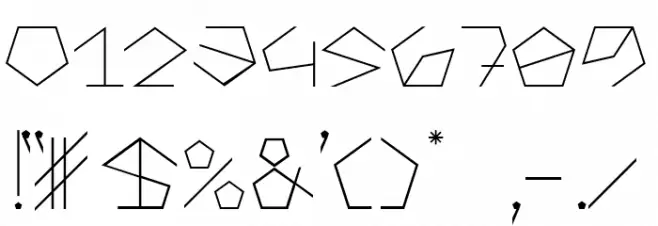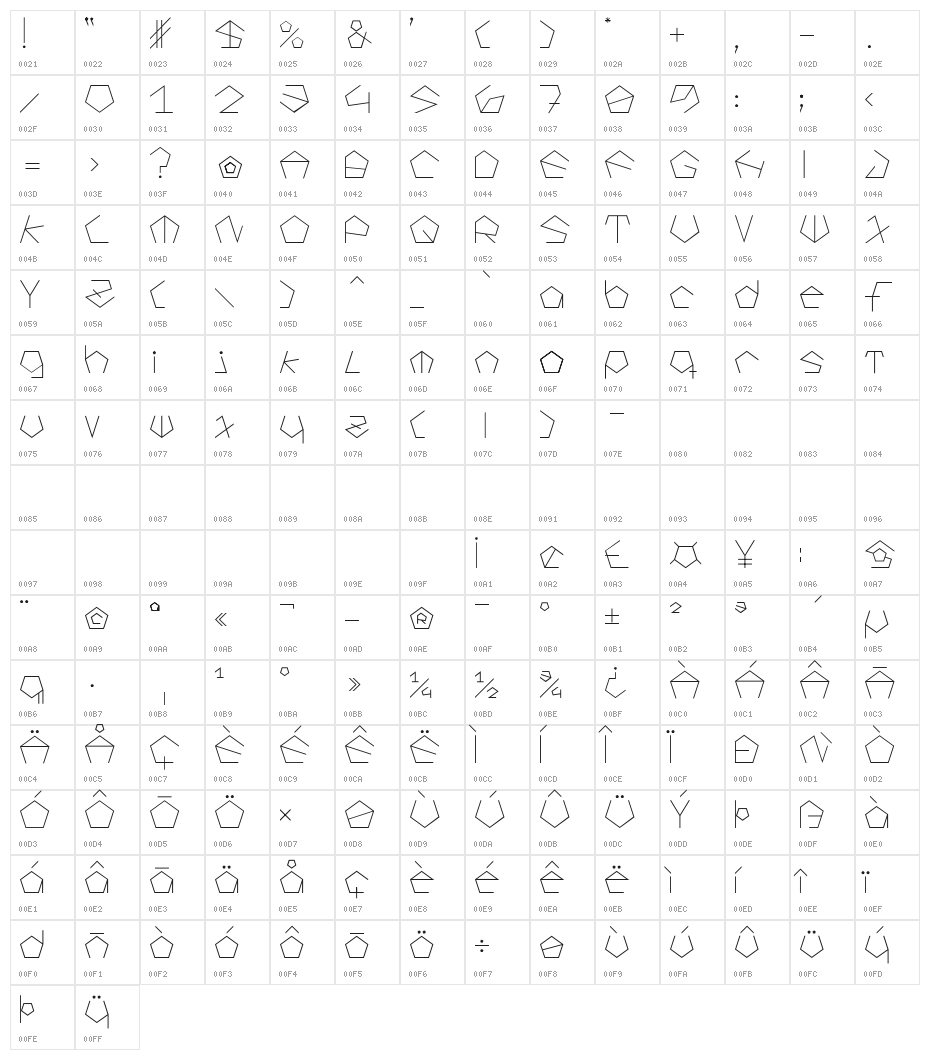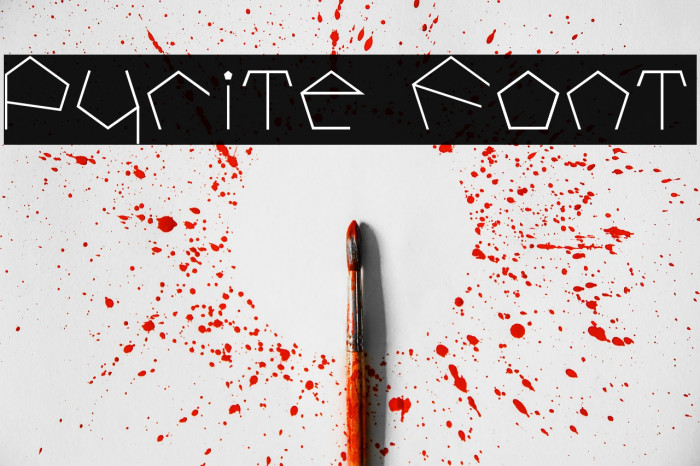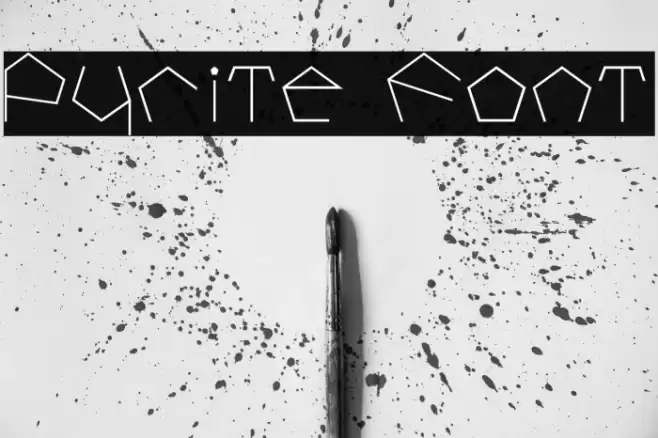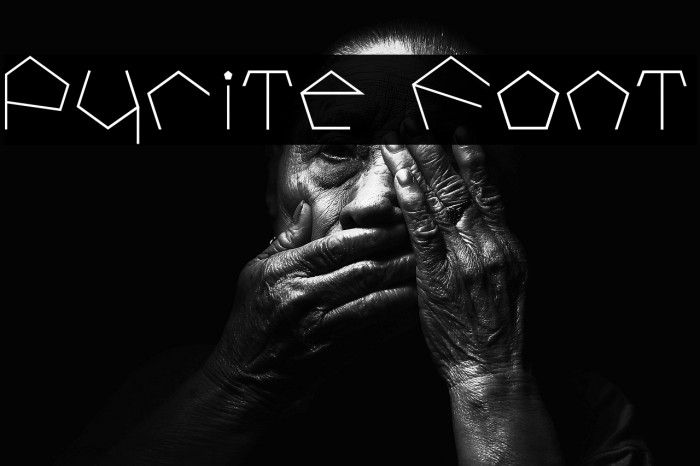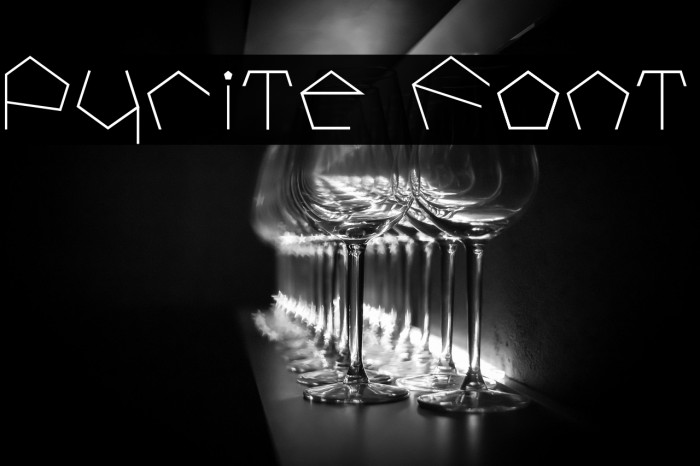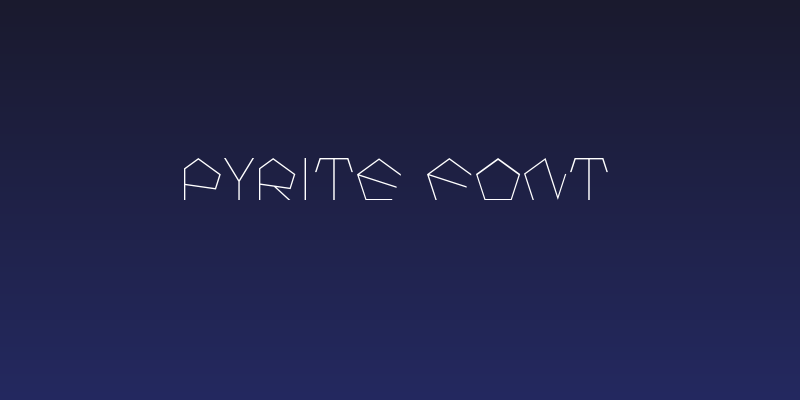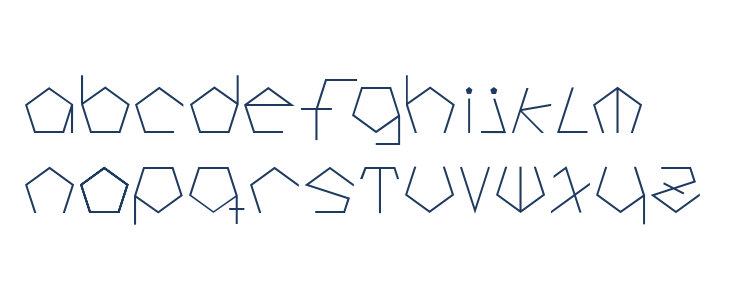
Pyrite Font Font
Pyrite Font Description
This font features a geometric and angular design, characterized by sharp lines and distinct angles. Each character is constructed with a series of straight lines, giving it a futuristic and abstract appearance. The uppercase and lowercase letters maintain a consistent style, with the lowercase being slightly smaller but equally angular. Numbers and special characters follow the same design principles, ensuring uniformity across the font. The overall look is modern and edgy, making it suitable for projects that require a unique and striking visual impact.